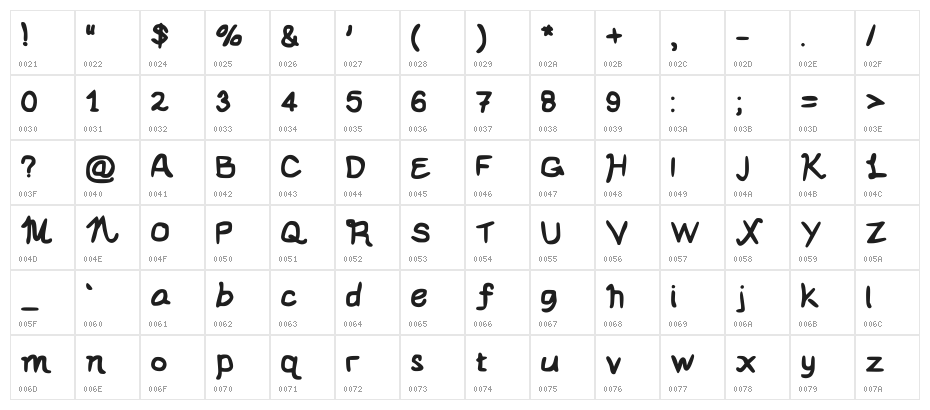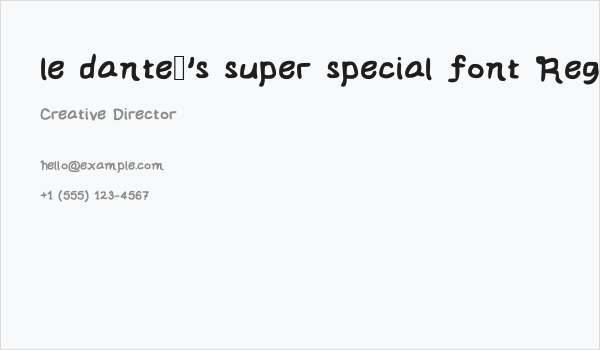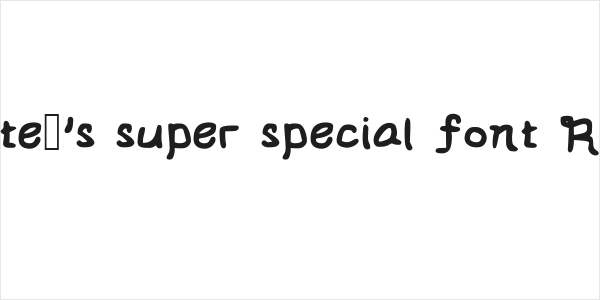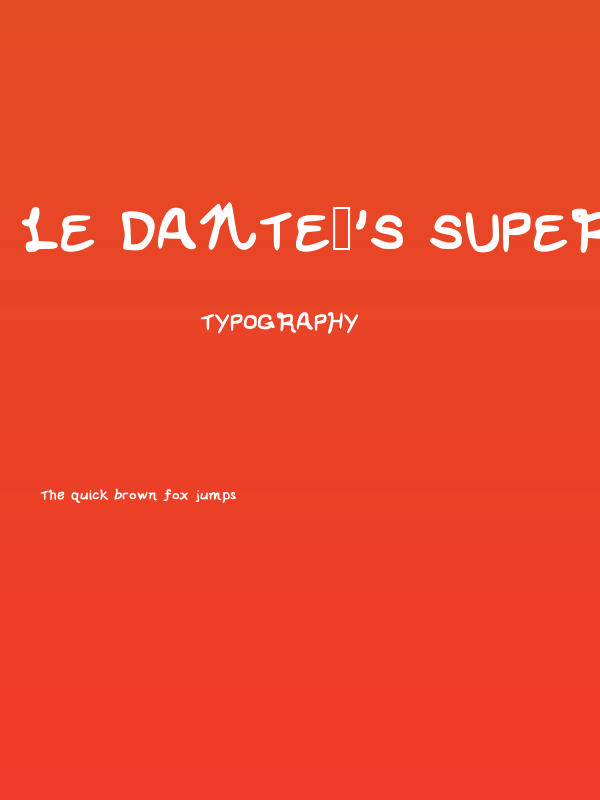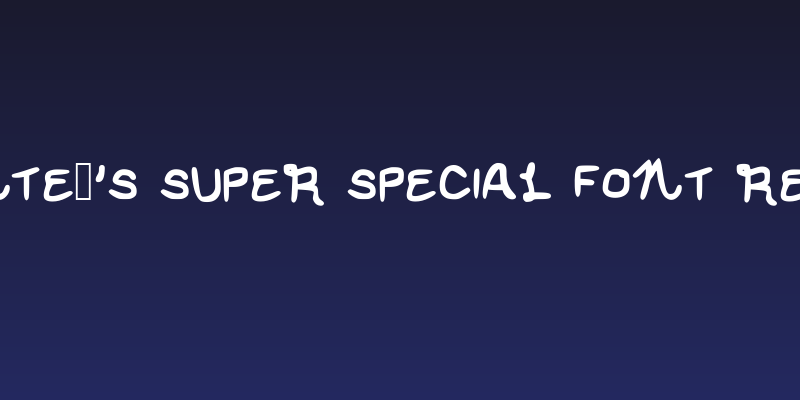
le dante's super special font Regular Font
le dante's super special font Regular Description
This font features a playful and bold style with a handwritten appearance. The characters are rounded with a slightly irregular baseline, giving it a casual and friendly look. The uppercase and lowercase letters maintain a consistent flow, while the numbers and special characters integrate seamlessly with the overall design. The strokes are thick and uniform, providing a strong presence on the page. This font is ideal for projects that require a touch of whimsy and approachability.
| Use Case | Logos, Headlines, Informal Text |
| Proposed Projects | Ideal for children's books, playful branding, greeting cards, and informal invitations. |